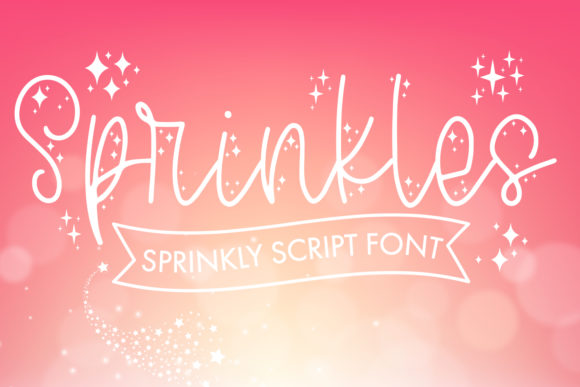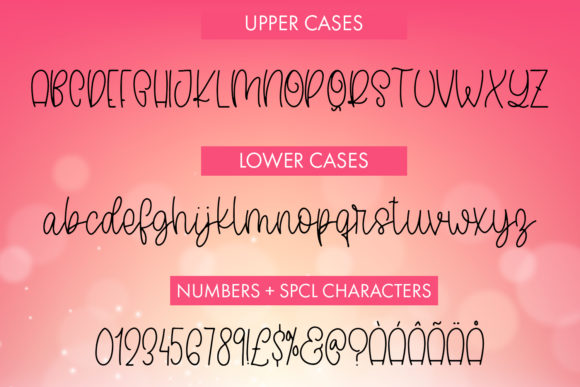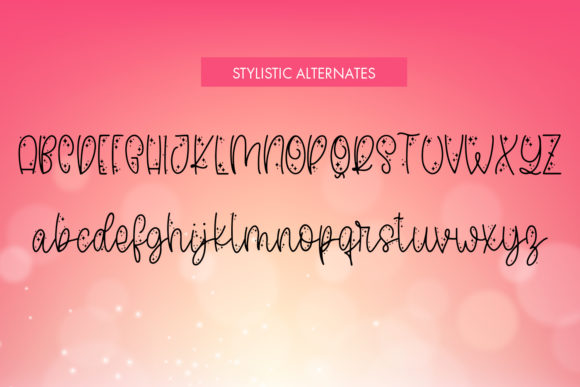
About Sprinkles Font
Sprinkles is a sparkly handwritten font with cute doodle elements. Sprinkles can be used for anything such as T-Shirt designs, phone cases, greeting cards, invitations, mugs and so much more!